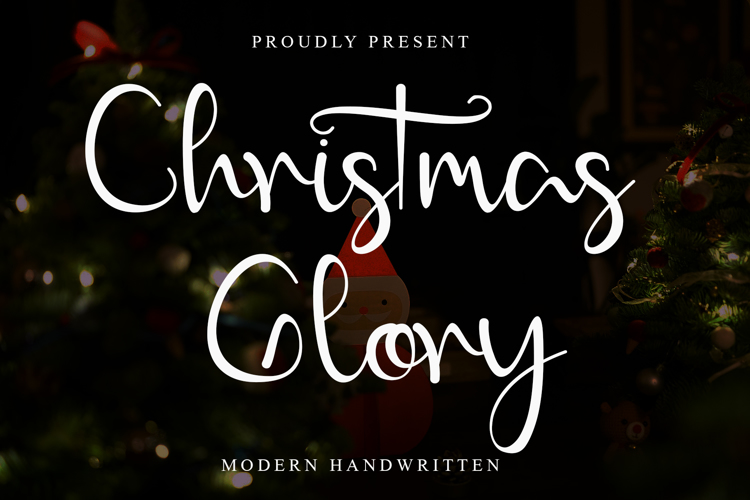
Christmas Glory Font
Christmas Glory is a chic and modern calligraphy font. It is ideal for crafting, branding, greeting cards and for adding a joyful touch to your designs!